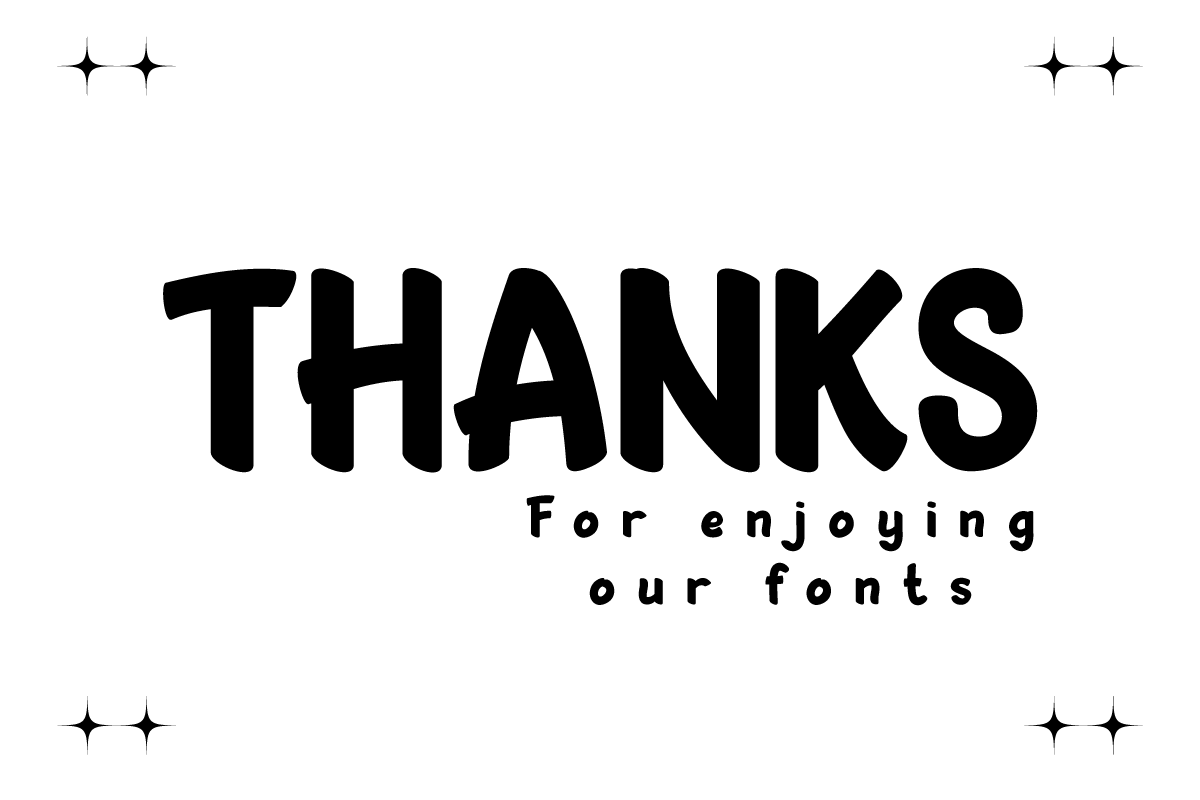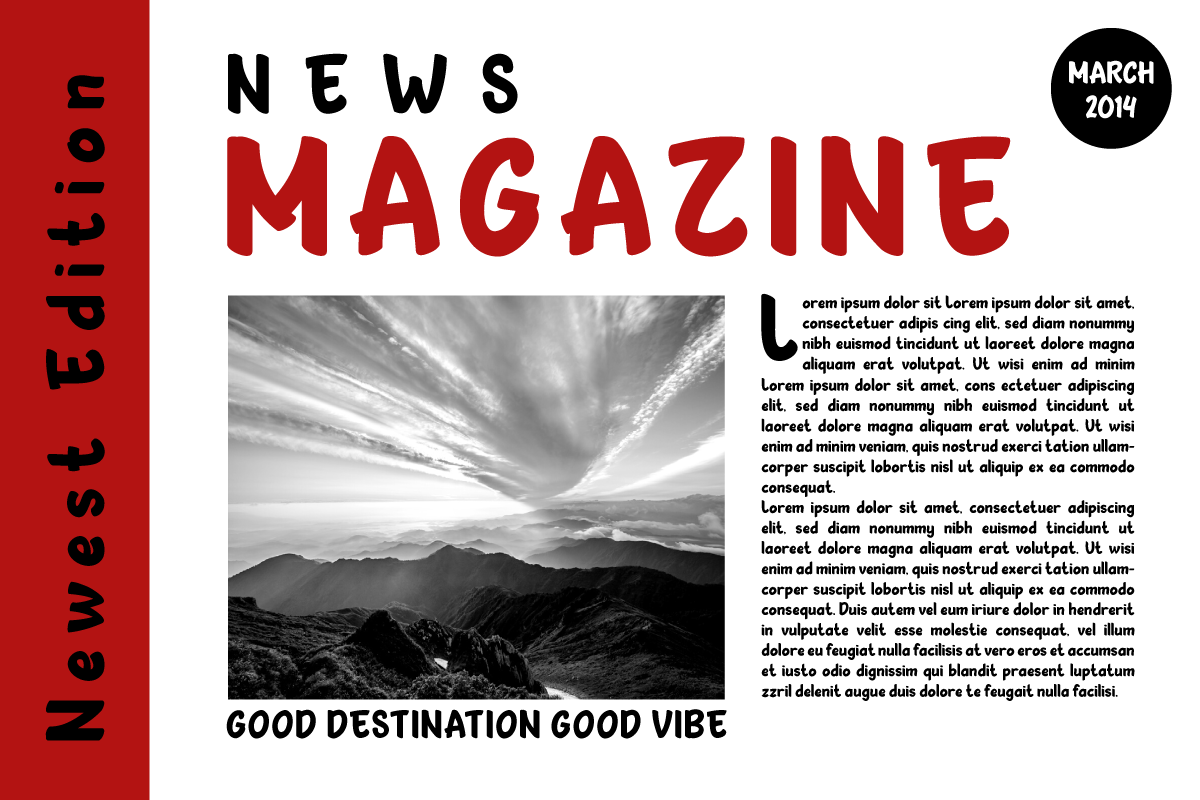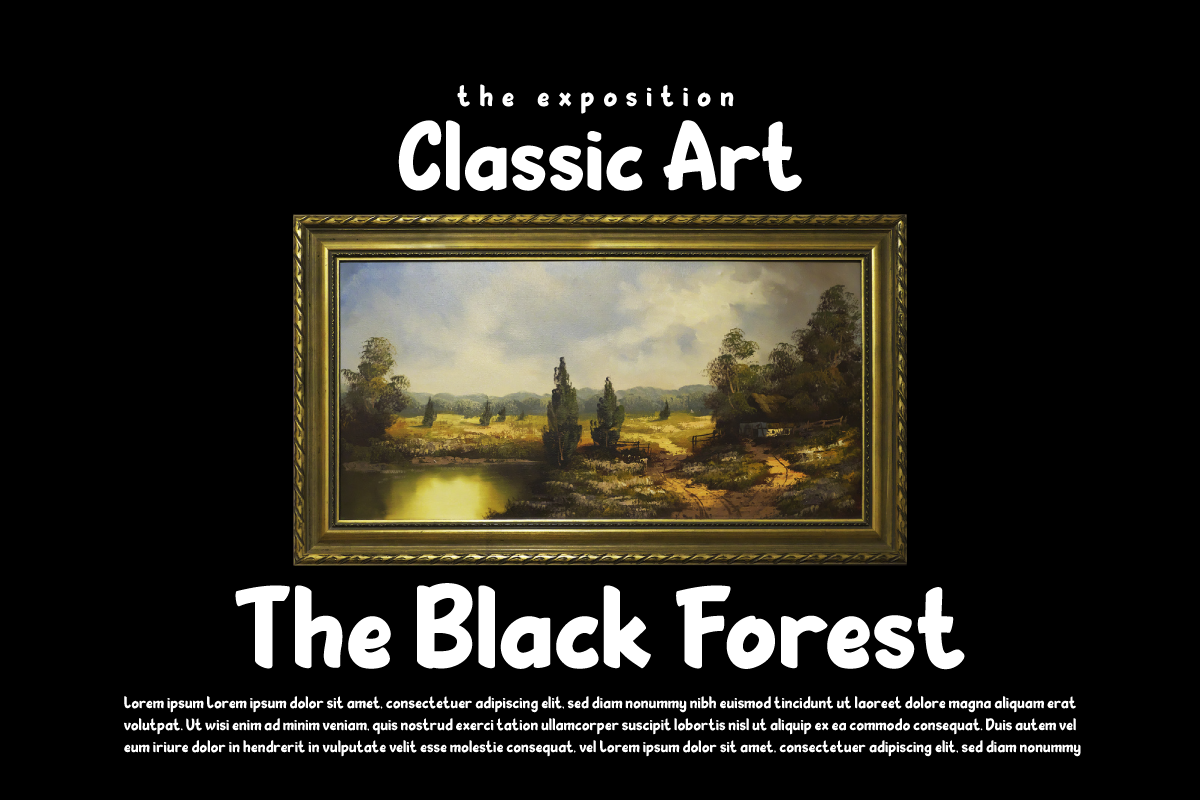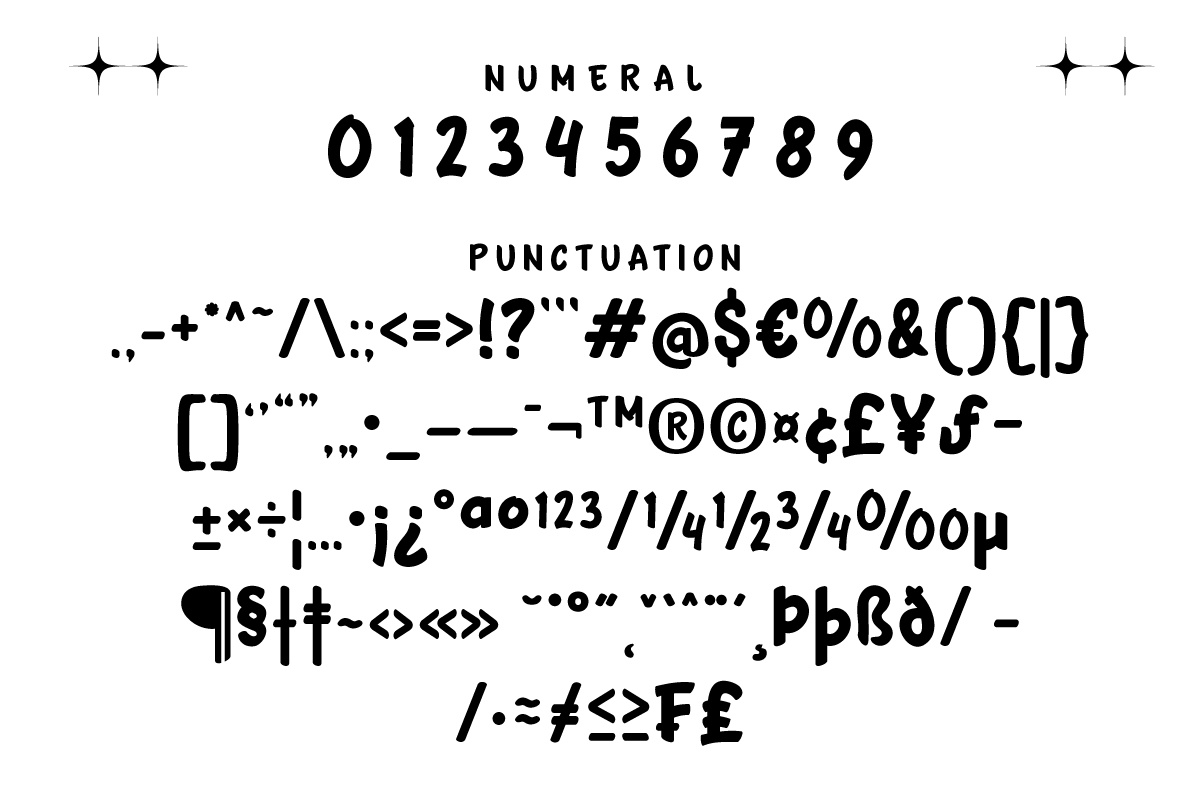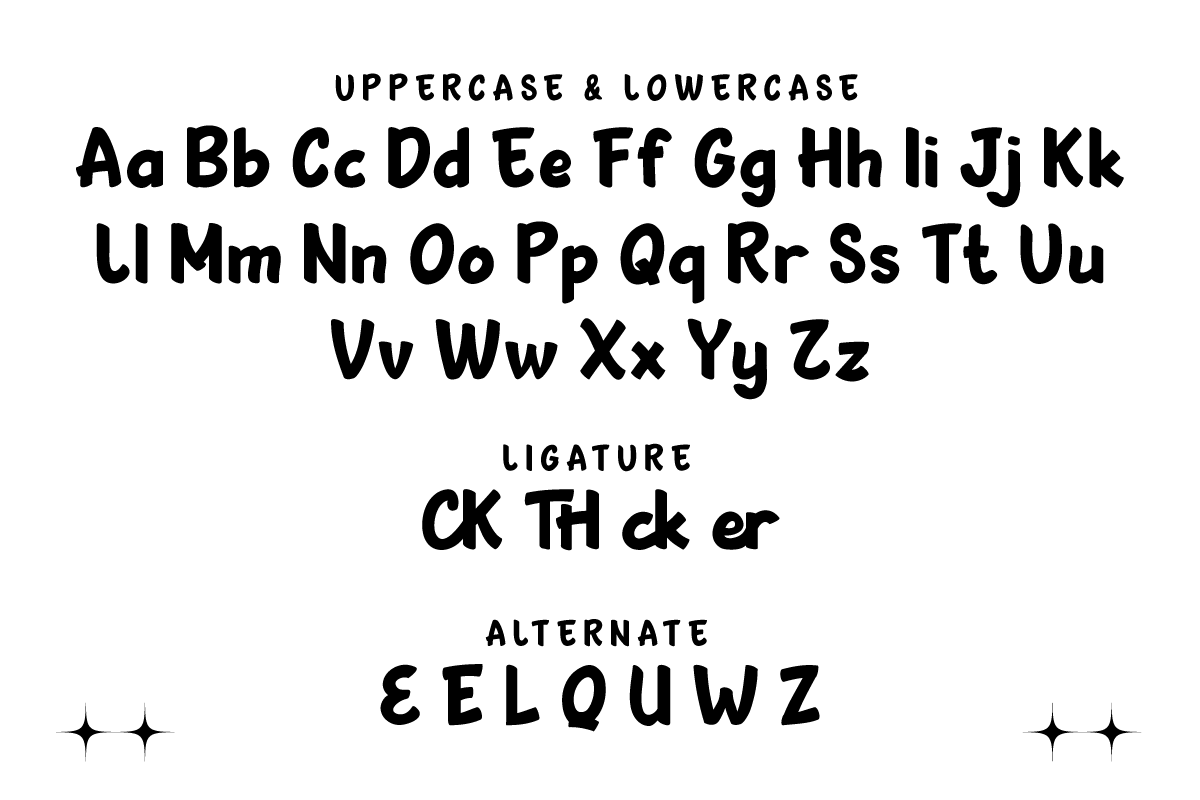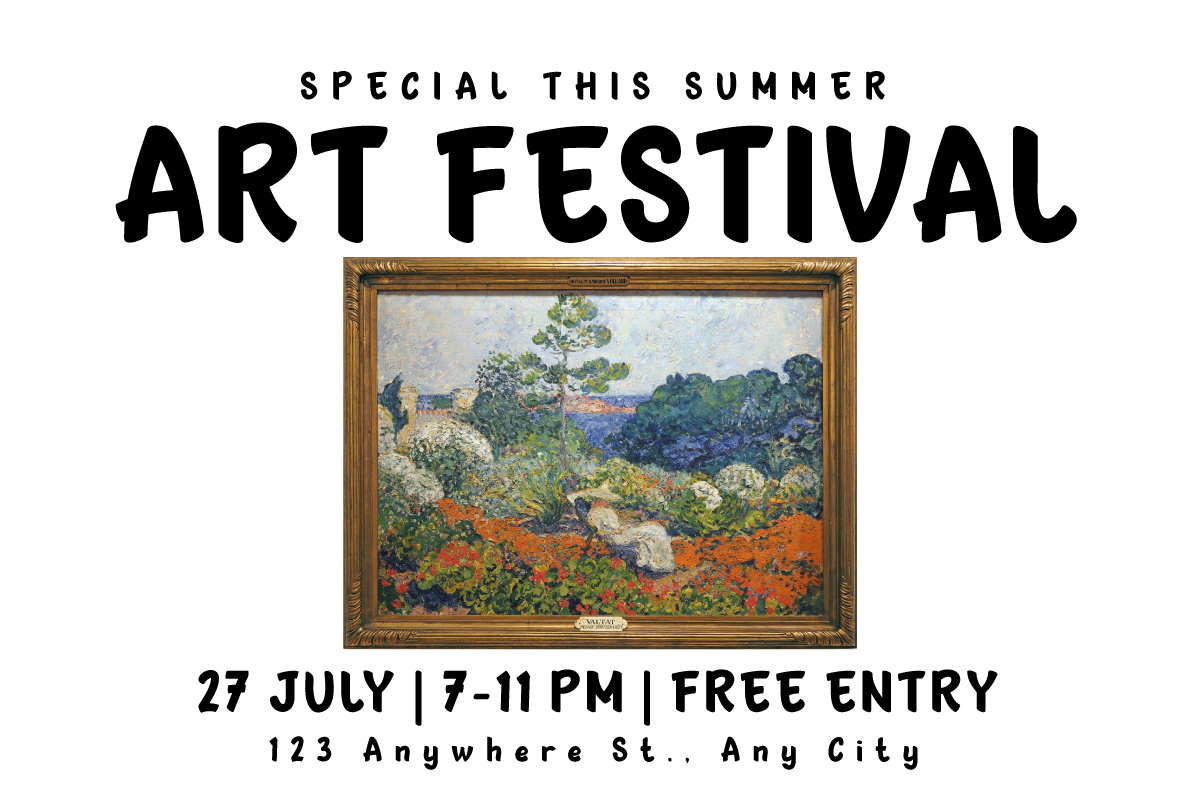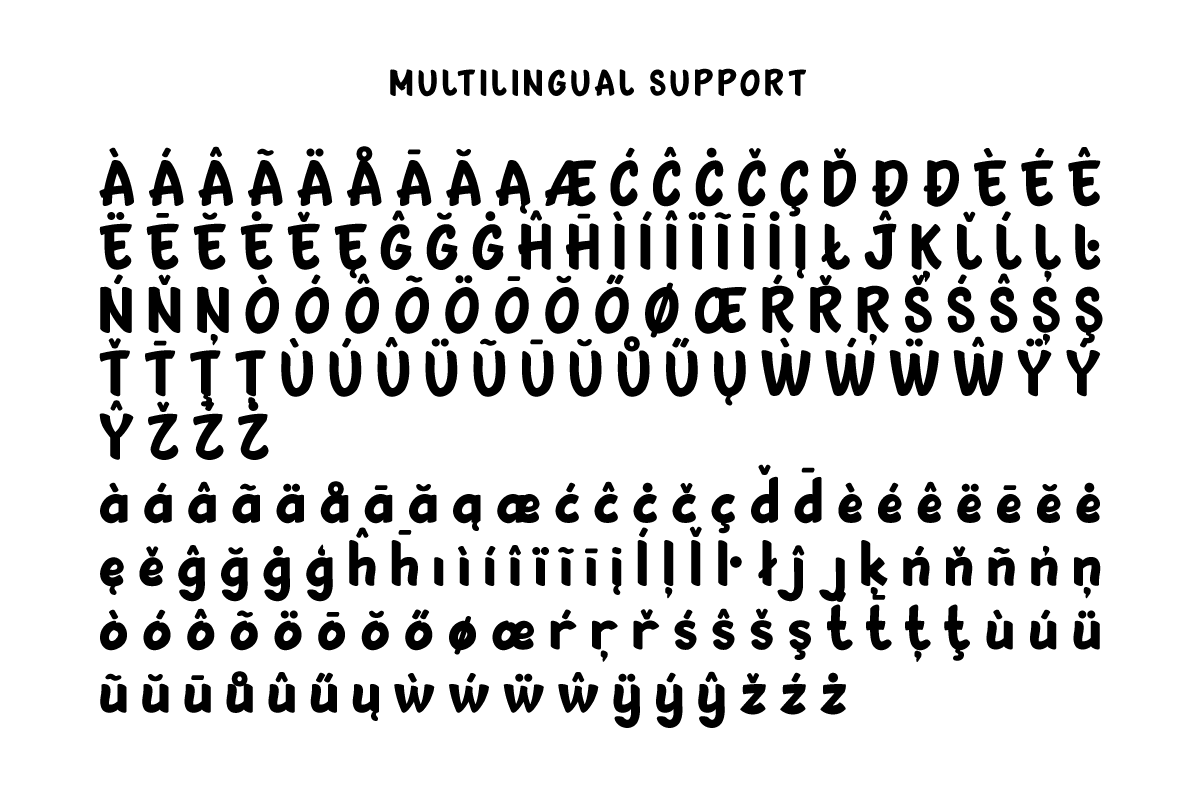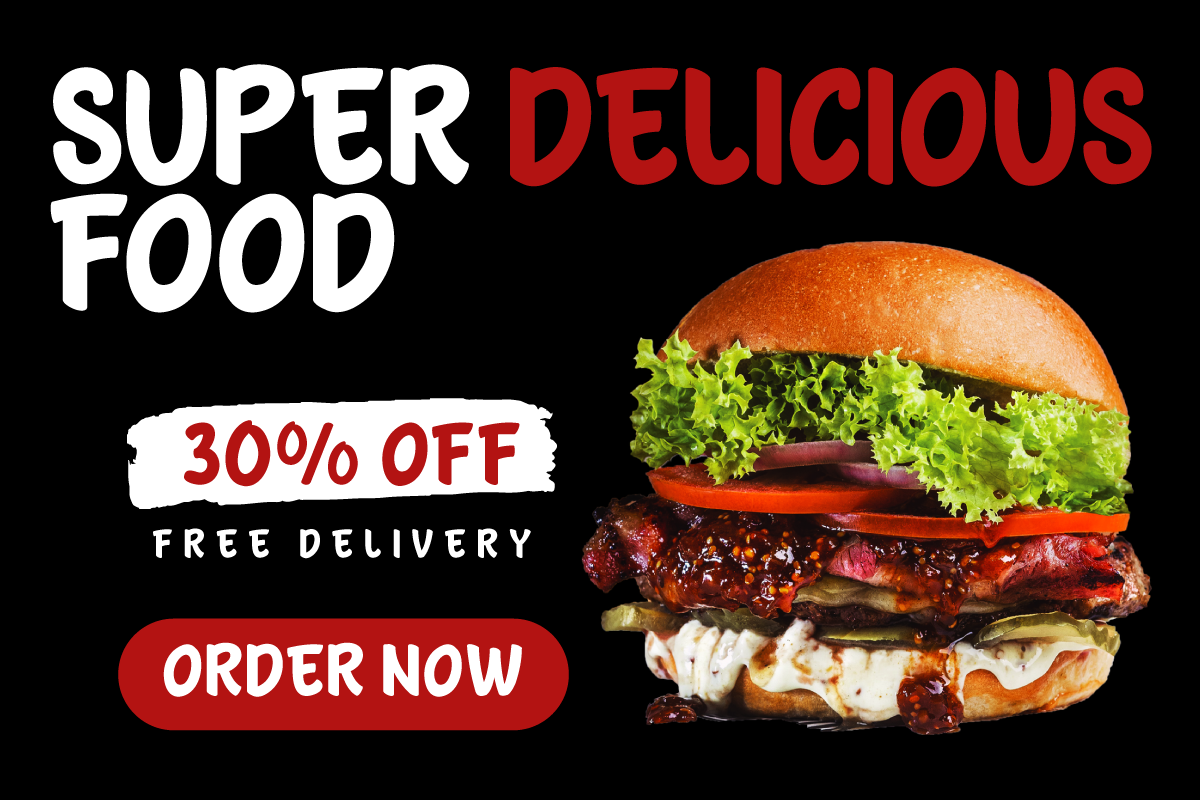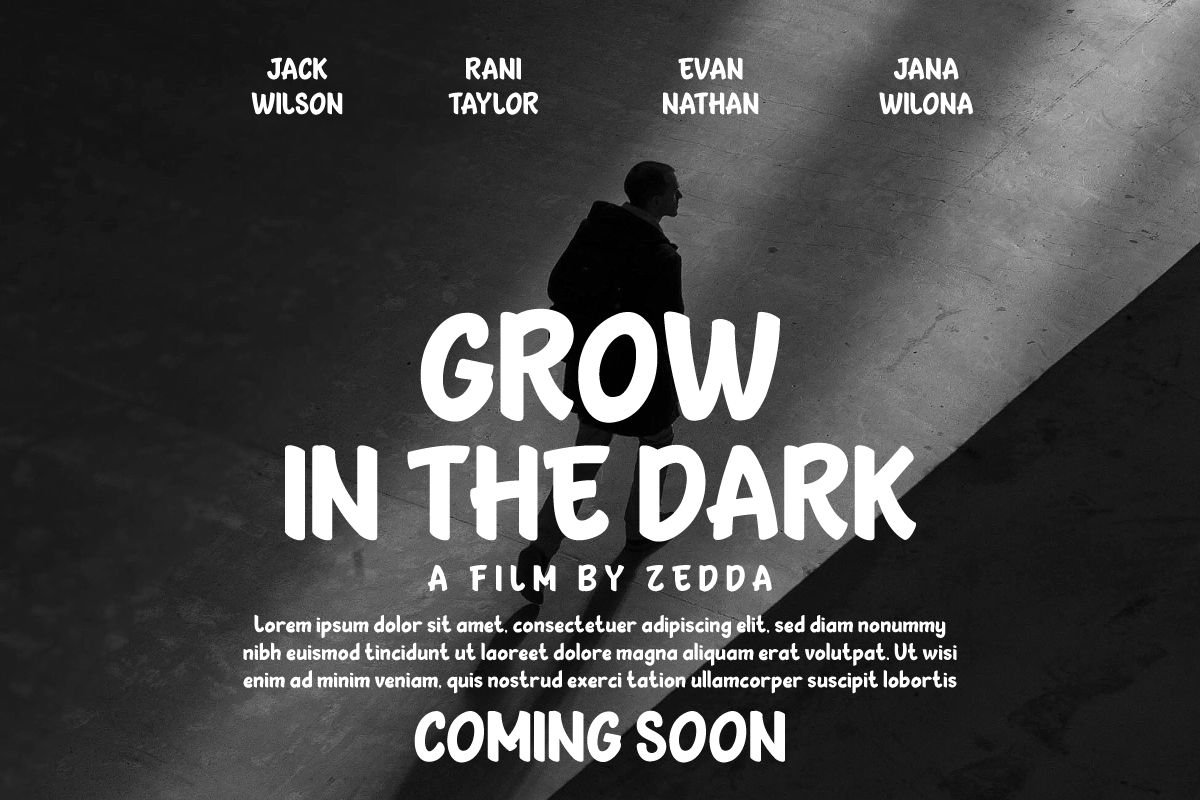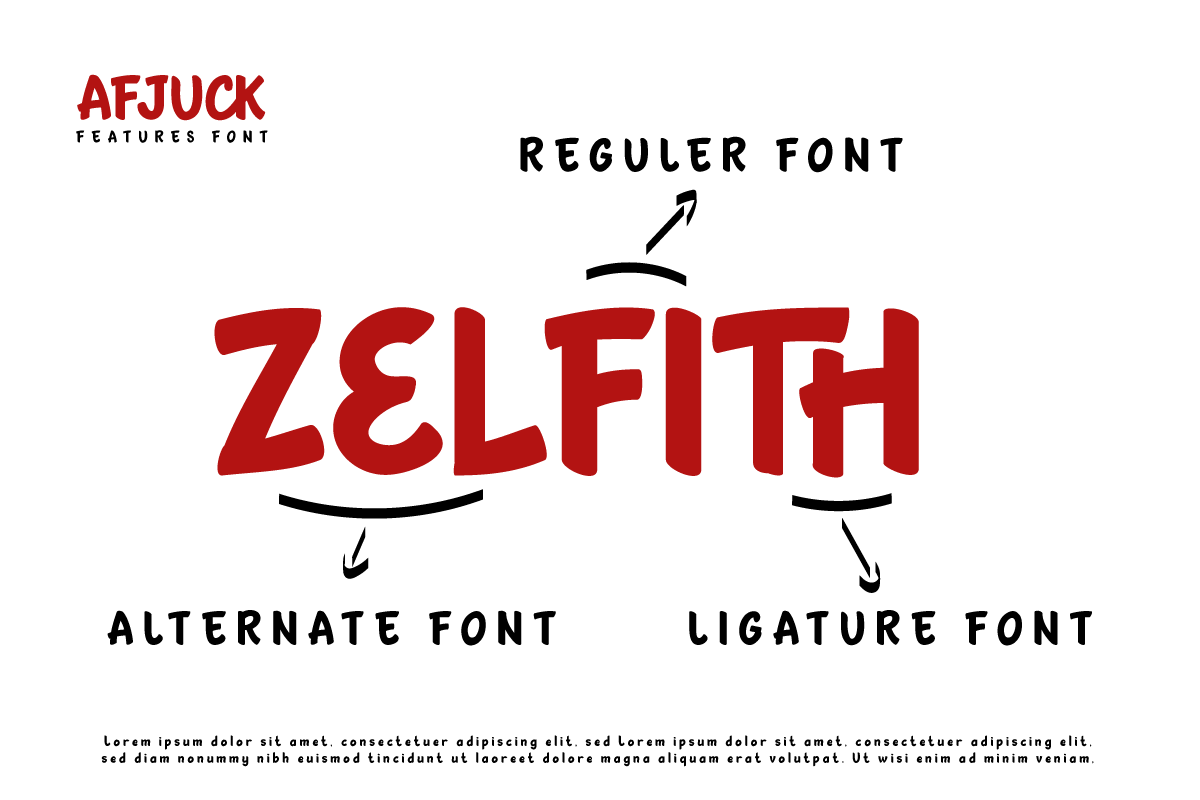
AFJUCK | Handwriting Display
Introducing AFJUCK Font – a captivating display typeface that effortlessly captures the essence of authentic handwriting! Elevate your projects with the artistic touch of AFJUCK, a perfect blend of style and individuality. Carefully crafted, this typeface adds a unique charm to a wide range of design endeavors, from invitations to branding materials. With its fluid ligatures and alternate characters, AFJUCK empowers you to craft distinct compositions with creativity. Overcome language barriers effortlessly, making this font a versatile choice for seamless communication across cultures. Embrace the creative power of AFJUCK Font and redefine your designs with the elegance of handwritten artistry. Explore AFJUCK now to see your creations spring to life!
- Alternate, Ligature